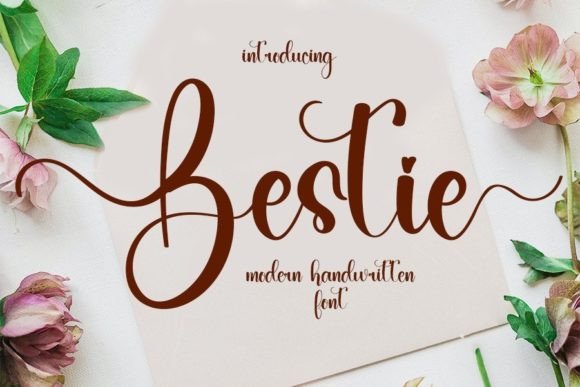
The Ultimate Guide to Bestie Font: Elevate Your Designs with Elegance
I’ll never forget the time I was working on a project for a client who wanted a font that exuded elegance and sophistication. I had spent hours scouring the internet for the perfect one, but nothing seemed quite right. That was until I stumbled upon Bestie Font. ✨ It was love at first sight! The beautiful, handwritten strokes and classic style instantly captured my heart, and I knew I had found the perfect fit for my project.
An Honest Review of Bestie Font
- ✨ Elegant and sophisticated design that’s perfect for a variety of projects
- 🎨 Versatile and works well with a range of design styles
- 💫 Timeless look that won’t go out of style anytime soon
While Bestie Font is an amazing addition to any design project, there are a few things to keep in mind: ⚠️ It may not be the best choice for very long blocks of text, as it can be a bit ornate. Additionally, some of the more intricate details may not render well at very small font sizes 🤔.
A Practical Guide to Using Bestie Font
The Story Behind Bestie Font
Bestie Font was designed by a talented typographer who wanted to create a font that was both elegant and approachable. The designer drew inspiration from classic handwritten scripts and infused them with a modern twist. The result is a font that’s both timeless and trendy, perfect for a wide range of design projects.
| Font Name | Bestie Font |
| What type of projects is Bestie Font best suited for? | Bestie Font is perfect for a variety of projects, including wedding invitations, branding materials, and social media graphics. |
| Is Bestie Font available in different weights or styles? | Bestie Font comes in a range of weights and styles, making it easy to find the perfect look for your design. |